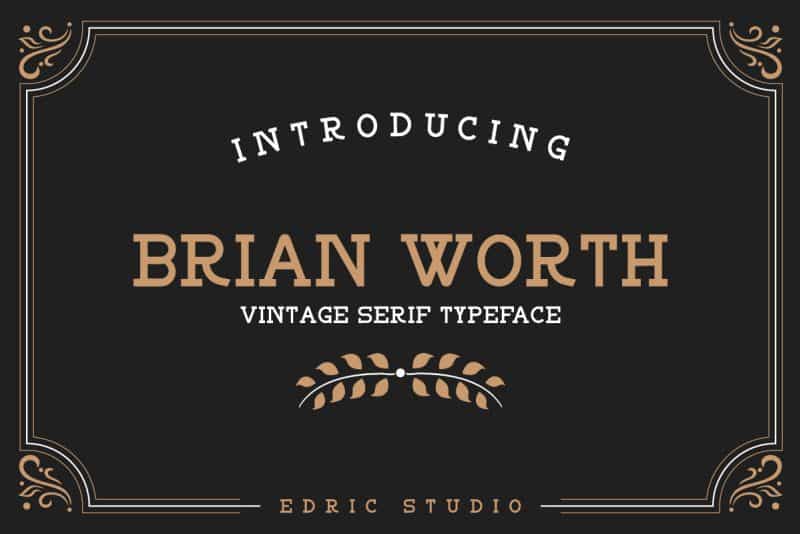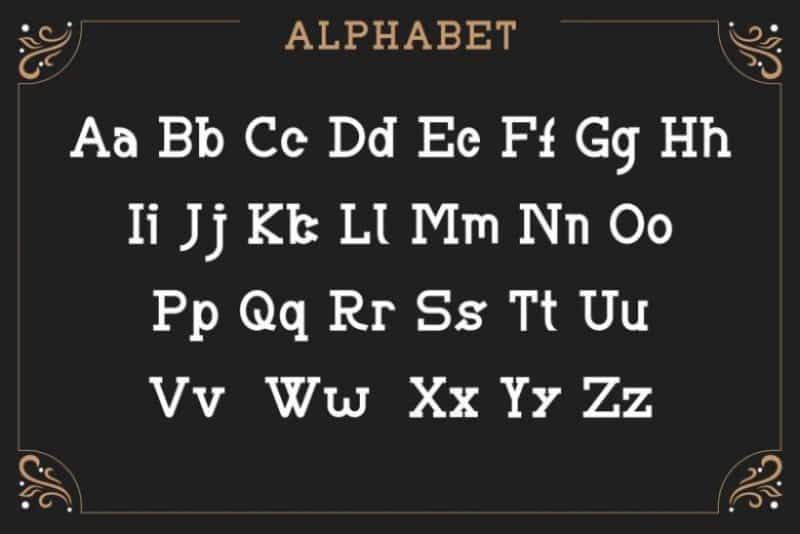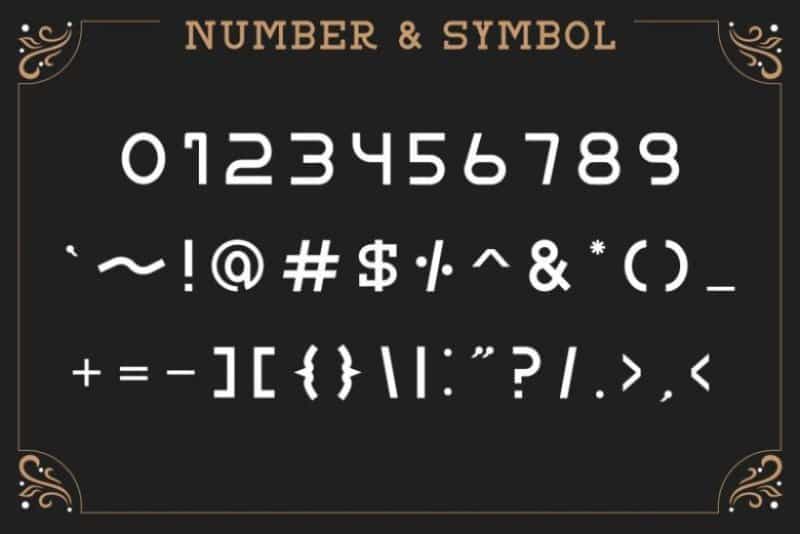
BRIAN WORTH – Vintage Font A displayless serif font. Great for many things : cafe signs, food menu flyer, poster, label at the same time a sticker or even branding for a retro corporate logo brand.